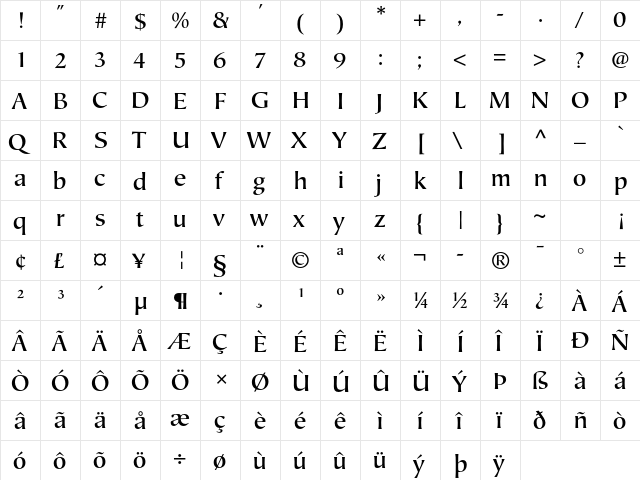
Mariposa Sans Std Medium
| Foundry | International Typeface Corporation |
| Designer | Philip Bouwsma |
Design Context for Mariposa Sans Std Typeface
Mariposa Sans Std offers clean, dependable letterforms without strong stylistic allegiance, making it a practical choice for designers who need flexibility.